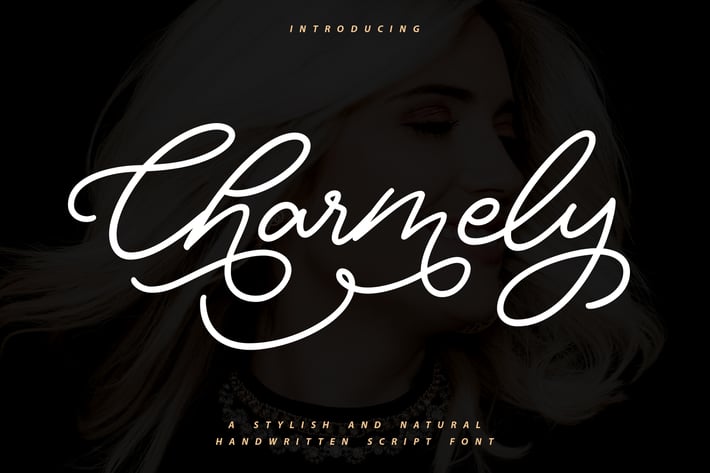
Charmelly | Handwritten Script Font
Charmelly | Handwritten Script Font with a calligraphy style, So beautiful on invitation like greeting cards, branding materials, business cards, quotes, posters, and more!